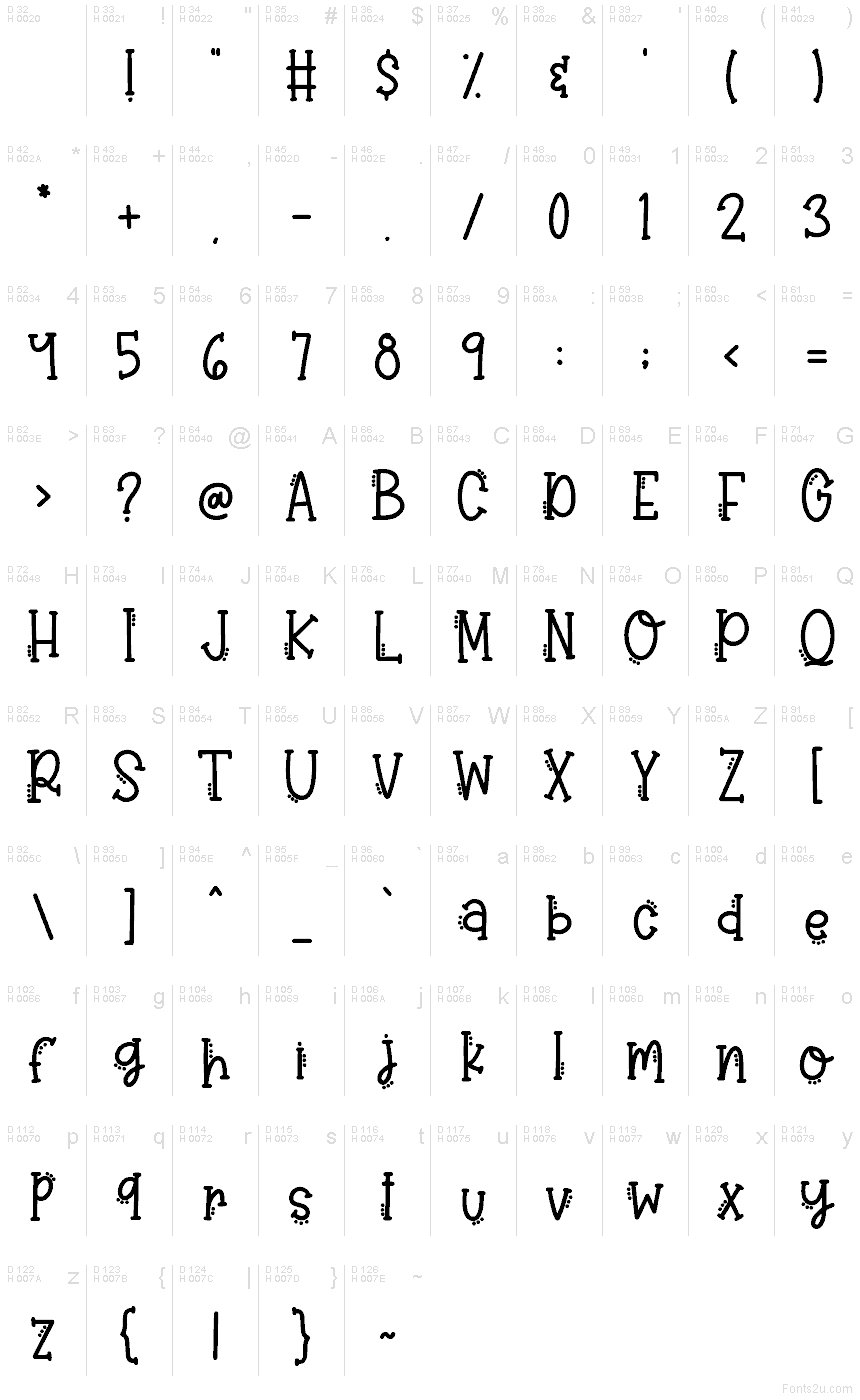
Polka Dot
Polka Dot font by Dm Letter Studio - Dimas Prasetyo is a free decorative display font. Built around playful bead-like dots that march along each letter’s edges, it turns simple words into confetti—bouncy, high-contrast, and cheerfully bold. The rounded strokes feel soft and inky, while the clustered spots add rhythm that reads clearly at headline sizes without losing its fun.
Using Polka Dot, you can brighten kids’ party invitations, craft packaging, bakery logos, toy branding, classroom posters, and holiday banners. This free font shines on stickers and social posts too, where its dotted accents pop instantly. Pair it with a simple sans-serif for body copy, and keep Polka Dot big—let those dots do the talking.